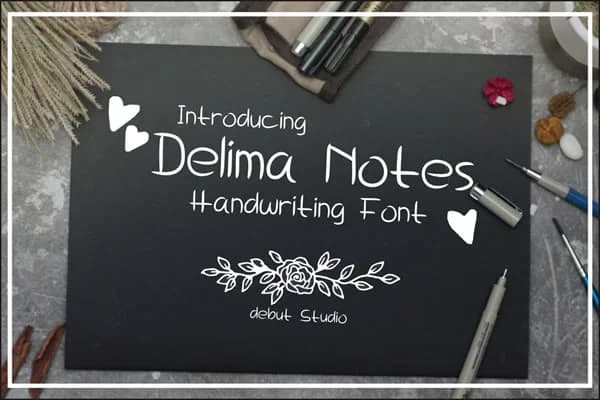
1 / 4About Delima Font
Delima Font by Debut Studio is a flowing script that combines the organic character of hand-lettering with refined letterforms, making it equally at home in modern branding and timeless print projects. The typeface's natural rhythm and connected strokes create an approachable yet sophisticated appearance that works across both digital and traditional media without sacrificing readability or distinctive personality.
This handwritten script excels in applications where authentic character drives the design forward: wedding invitation suites that feel genuinely personal, Etsy product labels for artisan goods and boutique brands, sophisticated event posters and formal announcements, and custom vinyl applications for small-batch apparel and fashion accessories. The letterforms maintain excellent legibility throughout various sizes while delivering the warmth and human touch that clients expect from hand-lettered typography, whether displayed at large sizes for dramatic signage or reduced for intricate packaging design and detailed branding applications.
Delima Font brings a personal dimension to your creative work, from comprehensive branding packages and business stationery to DIY craft signage and custom personalized gifts. The consistent letterform quality ensures professional results across print and digital contexts, giving your designs the sophisticated hand-made appeal they deserve. Discover Delima Font on Creative Fabrica and explore how this handwritten script can transform your next project.
Delima Font is a script font that shines as a display or heading face. Pair it with a clean sans-serif or serif font for body text β the contrast creates a clear hierarchy while the two styles stay balanced and easy to read.
Delima Font
by Debut Studio